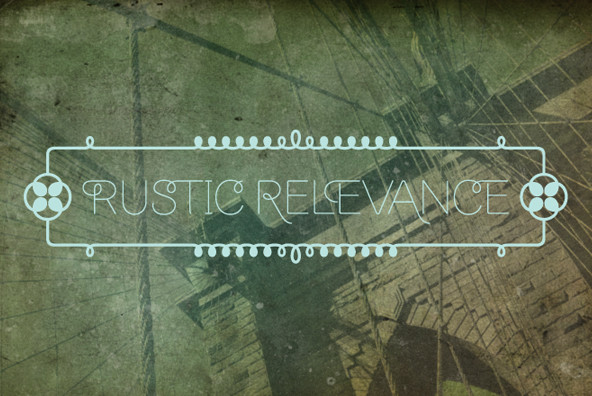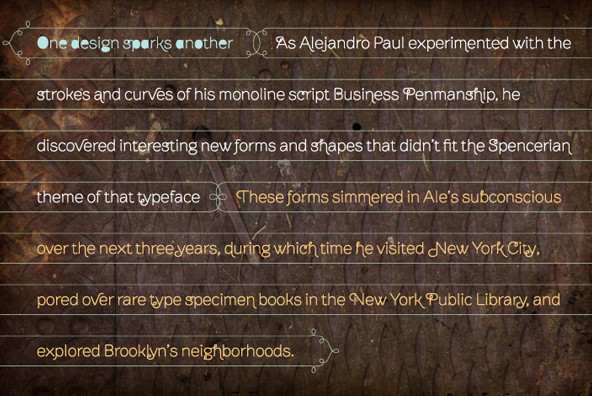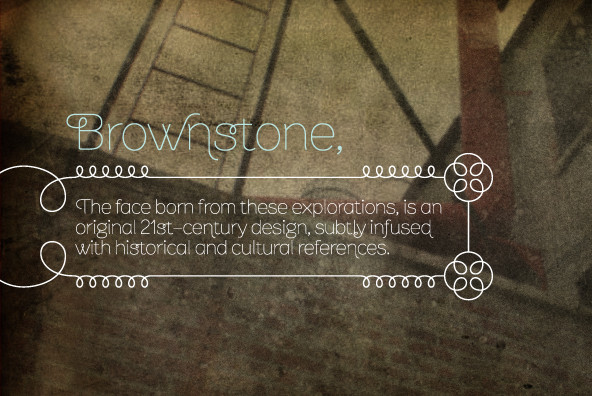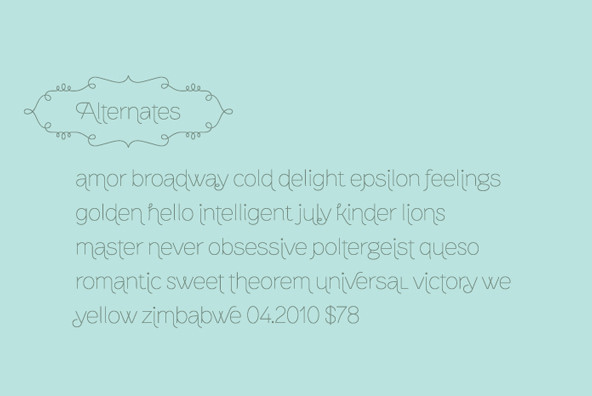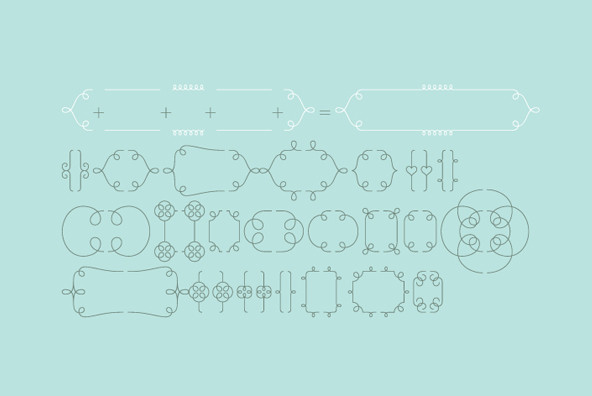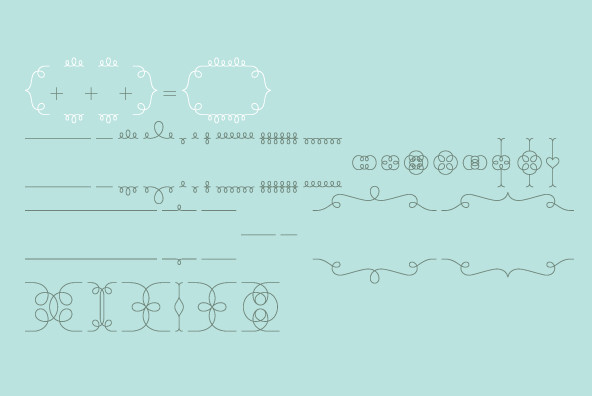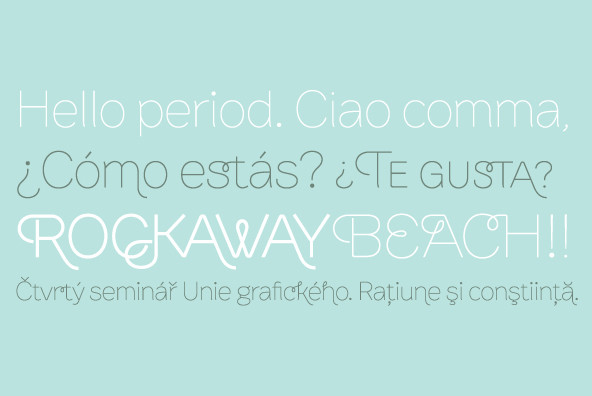
Brownstone Sans
Foundry: Sudtipos
One design sparks another. As Alejandro Paul experimented with the strokes and curves of the monoline script Business Penmanship, he discovered interesting new forms and shapes that didn't fit the Spencerian theme of that typeface. These forms simmered in Ale's subconscious over the next three years, during which time he visited New York City, pored over rare type specimen books in the New York Public Library, and explored Brooklyn's neighborhoods.
Brownstone, the face born from these explorations, is an original 21st-century design, yet one subtly infused with historical and cultural references — keen observers might spot influences from decorative typefaces of 19th-century foundries. And just as faces from that era were influenced by contemporary architecture, the frames included with Brownstone echo the ornate iron railings of Park Slope's row houses. (There's also a slight 1960s vibe to Brownstone, of novelty swash-sans photocompositing faces, that can be played up at your discretion.)
Influences aside, Brownstone has broad appeal to modern audiences. A soft, monoline sans-serif, with elements of Swiss geometry (see the 'k' and 'x'), its marriage of highly legible, draftsman-like letterforms with decorative swashes and ornaments reflects the old-meets-new aesthetic of the DIY craft culture seen in Brooklyn and other urban centers. It's ornamental but unfussy, romantic but understated – a design theme well-suited to recession-era cynicism.
Brownstone includes character sets for Latin-based languages, including Western and Eastern European, Baltic, Turkish, Maltese, Celtic and Welsh. Over 1500 glyphs, including small capitals, swash characters, alternates, and ligatures, in both Light and Thin weights. Ornamental frames are also provided for both weights.
Design: Alejandro Paul
Foundry: Sudtipos
Brownstone, the face born from these explorations, is an original 21st-century design, yet one subtly infused with historical and cultural references — keen observers might spot influences from decorative typefaces of 19th-century foundries. And just as faces from that era were influenced by contemporary architecture, the frames included with Brownstone echo the ornate iron railings of Park Slope's row houses. (There's also a slight 1960s vibe to Brownstone, of novelty swash-sans photocompositing faces, that can be played up at your discretion.)
Influences aside, Brownstone has broad appeal to modern audiences. A soft, monoline sans-serif, with elements of Swiss geometry (see the 'k' and 'x'), its marriage of highly legible, draftsman-like letterforms with decorative swashes and ornaments reflects the old-meets-new aesthetic of the DIY craft culture seen in Brooklyn and other urban centers. It's ornamental but unfussy, romantic but understated – a design theme well-suited to recession-era cynicism.
Brownstone includes character sets for Latin-based languages, including Western and Eastern European, Baltic, Turkish, Maltese, Celtic and Welsh. Over 1500 glyphs, including small capitals, swash characters, alternates, and ligatures, in both Light and Thin weights. Ornamental frames are also provided for both weights.
Design: Alejandro Paul
Foundry: Sudtipos